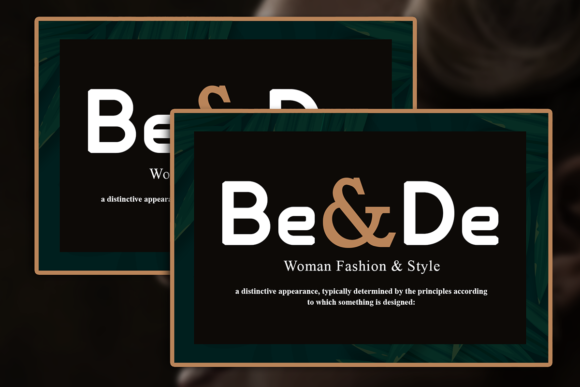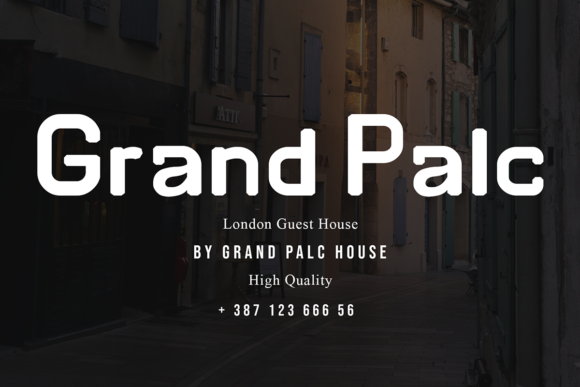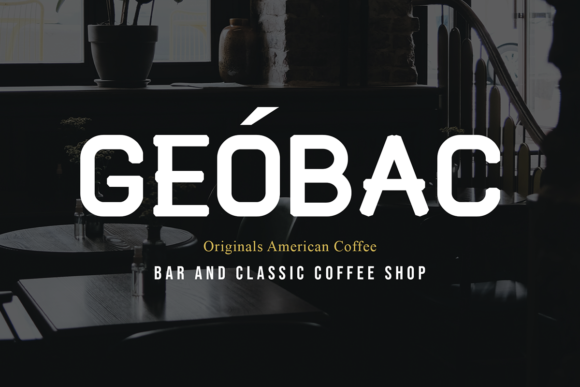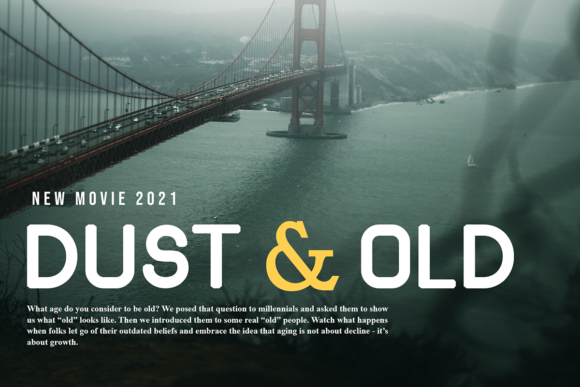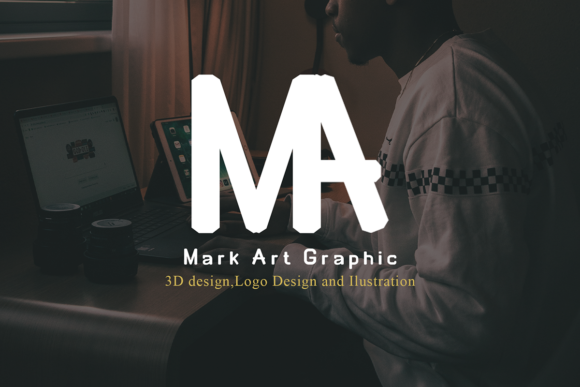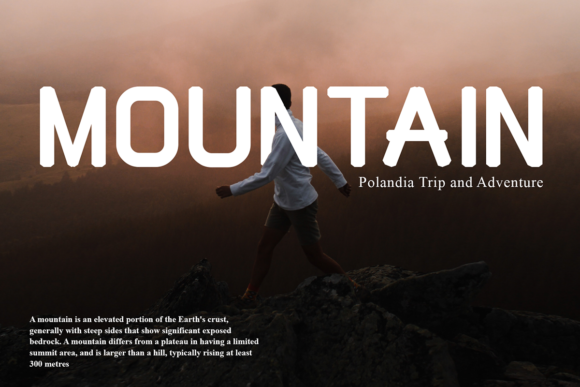
Introduction to Joyous Font
Joyous is a modern and cool display font.
This typeset is perfect for brand logos, invitations, greeting cards, or even any kind of project With multilingual features and style variations, this typeface would further enhance the aesthetical aspect of your work.
Key Features of Joyous Font
Why Choose Joyous Font?
Joyous Font offers exceptional quality and versatility, making it a valuable addition to your design toolkit. Whether you’re creating for personal projects or commercial use, Joyous Font delivers professional results.